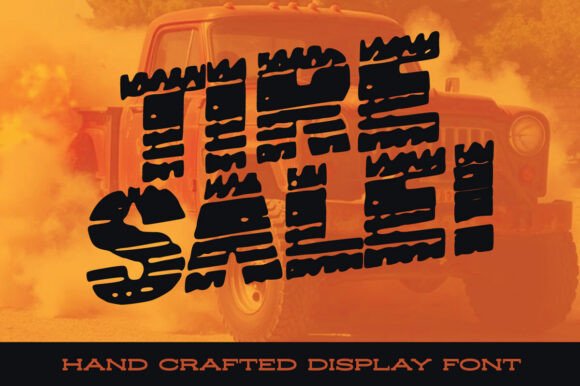
‘Tire Sale’ is a bold and rugged display font inspired by the texture and patterns of tire tracks. Each letter features deep grooves, treads, and rough edges, mimicking the imprint of a heavy-duty tire on dirt or pavement. The characters may have a slightly distressed or grunge effect to enhance the realistic look, making it perfect for automotive ads, off-road events, or anything with a gritty, industrial vibe. It’s a high-impact, all-caps font that demands attention—just like a fresh set of tires on the road.
Tire Sale Font